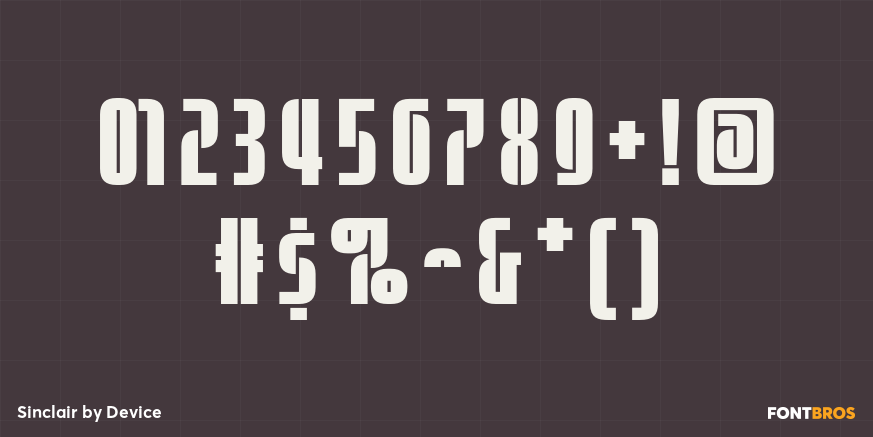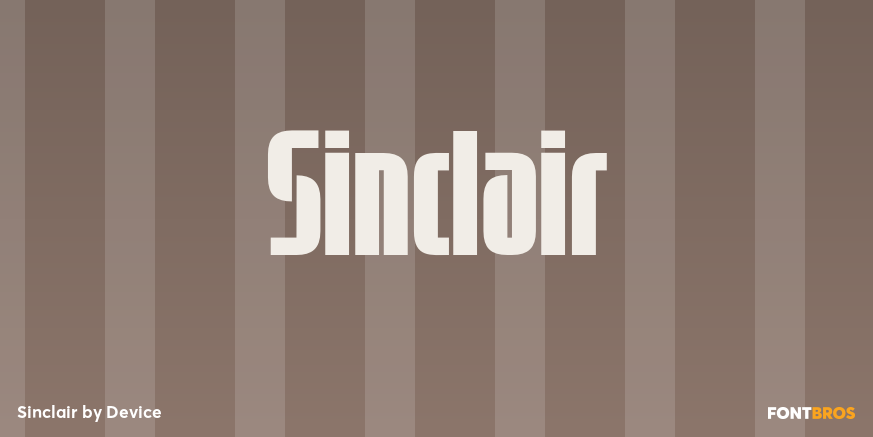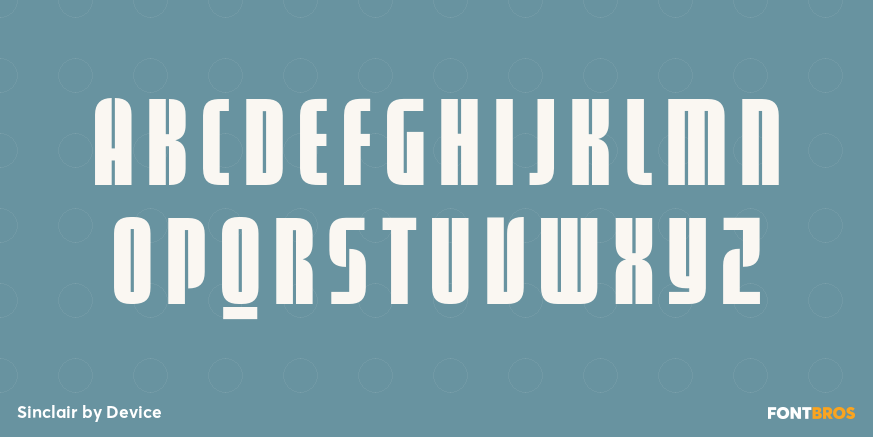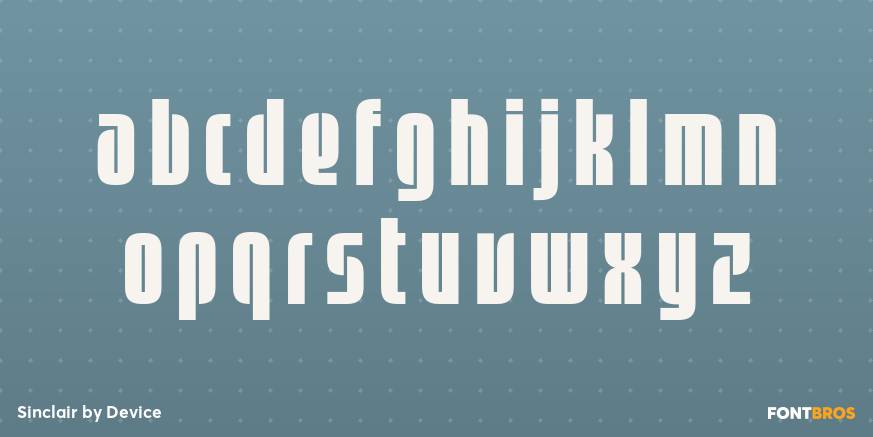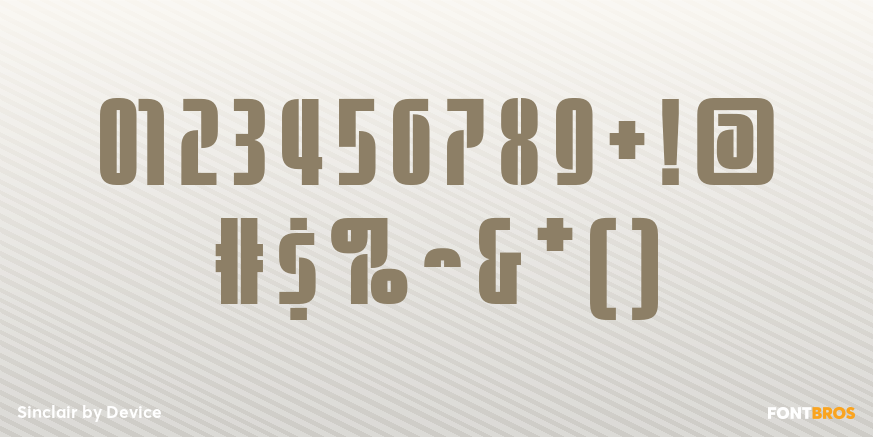
Sinclair
Font Family by Device Fonts
Sinclair is a two-style display family from Device with a distinctly groovy, retro attitude. Tagged with 1960s and 1970s references, it brings a bold period feel that reads as playful, expressive, and instantly eye-catching.
The family includes Sinclair Display and Sinclair Biform, giving you two ways to work with its vintage-inspired character. That makes it a strong choice for posters, branding, packaging, album-inspired graphics, and other decorative display settings where you want lettering to do more of the visual heavy lifting.
With its special effect styling and unmistakable throwback mood, this family is well suited to designs that call for nostalgia, personality, and a more stylized headline voice.